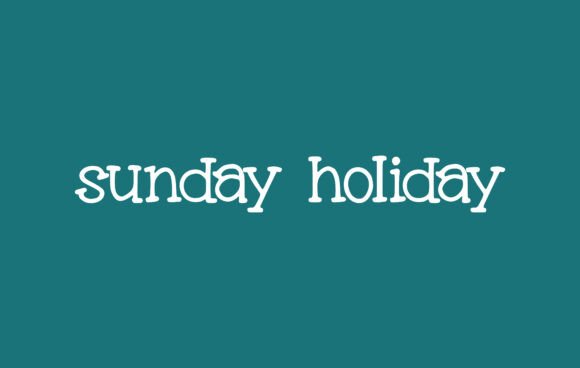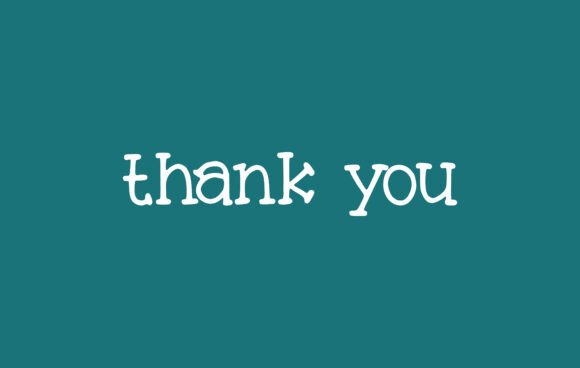
The Perfect Font for Your Creative Vision
Have you ever stared at a blank page, trying to find the perfect font to bring your creative idea to life? The struggle is real, but we’re about to make it a whole lot easier. For designers, finding the right font can be a game-changer, and that’s exactly what Adorable Font aims to do.
Adorable Font is a beautifully crafted, authentic handwritten font that adds a touch of romance to any design. Its legibility and versatility make it perfect for a wide range of applications, from magazine headlines to social media posts. Whether you’re working on a branding project, designing wedding invitations, or creating cards, Adorable Font is the perfect addition to your toolkit.
Adorable Font Key Features
- Unique Characteristics: Adorable Font features a playful, handwritten style with unique flourishes and swashes, perfect for adding a touch of whimsy to designs
Designer Review: Adorable Font
Adorable Font has caught my attention with its playful and whimsical style. I love how it adds a touch of warmth and personality to digital designs ✨. The font’s unique characters and letterforms make it perfect for child-friendly projects, such as educational materials, children’s books, and websites for kids.
Here are some of the things that I think work well:
- ⭐️ The font’s versatility in various font sizes and weights.
- ⭐️ The range of characters and special symbols available.
- ⭐️ The font’s ability to convey a sense of friendliness and approachability.
However, I do have a few concerns:
⚠️ The font’s readability can be an issue at smaller font sizes, particularly in digital environments. This can make it difficult for users to read and understand the content.
⚠️ The font’s design may not be suitable for more formal or professional projects, as it can come across as too playful or immature.
Overall, I think Adorable Font is a great addition to any designer’s toolkit. While it may have some limitations, its unique style and versatility make it a great choice for certain types of projects. With some careful consideration and use, I believe Adorable Font can add a lot of value to digital designs.
Here are some tips for getting the most out of Adorable Font:
- Use Adorable Font for creating eye-catching titles and headings
- Pair Adorable Font with other playful fonts for a unique and creative look
- Use Adorable Font for designing social media graphics, flyers, and other promotional materials